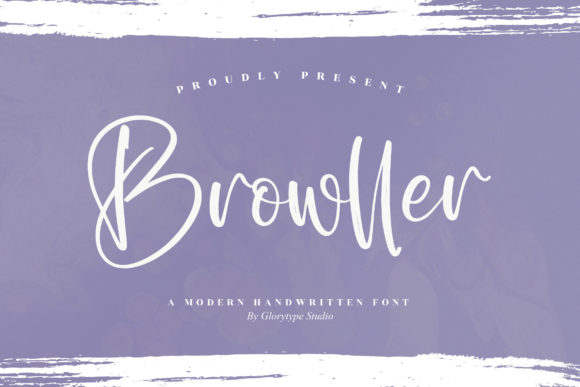
Behold Browller, a striking script font that will ignite your creative spirit. Immerse yourself in its enchanting world, where each character gracefully sways along the baseline, leaving a trail of elegance and sophistication in its wake. Adorn your designs with Browller's allure and watch as they transform into captivating masterpieces.
Unleash the Power of Signature and Logos:
With Browller by your side, you can forge an identity that exudes individuality and class. Craft logos that resonate with your brand's essence, and watch as they capture attention and leave a lasting impression. Whether you seek a signature logo that reflects your personal flair or a business logo that commands respect, Browller is your trusted ally.
Fashionable and Relaxed:
Embrace the fusion of style and comfort with Browller. Its fashionable appearance adds a touch of panache to your designs, while its relaxed nature invites warmth and approachability. Perfect for branding, social media, and any project that demands a contemporary and welcoming aura, Browller effortlessly elevates your creations.
Luxury Spark:
Infuse your designs with a touch of luxury that captivates and inspires. Browller's intricate details and sweeping strokes embody elegance, adding a touch of exclusivity to your work. From wedding invitations that exude romance to product packaging that demands attention, Browller transforms the ordinary into the extraordinary.